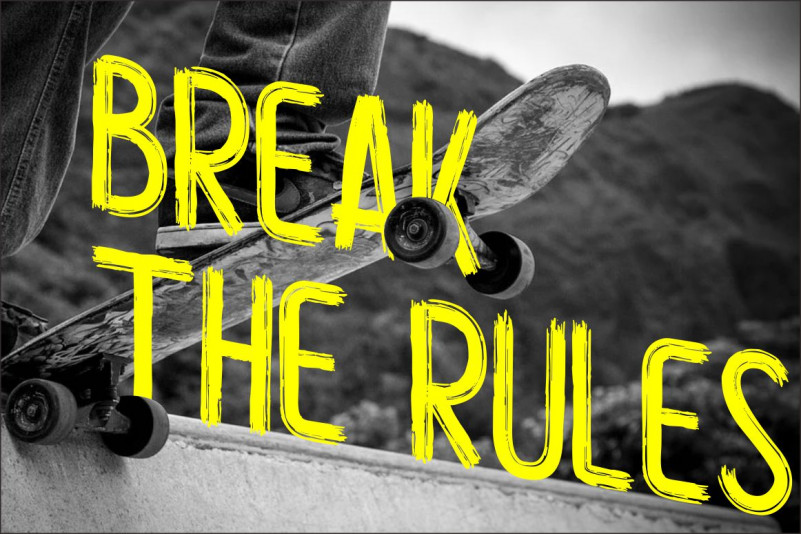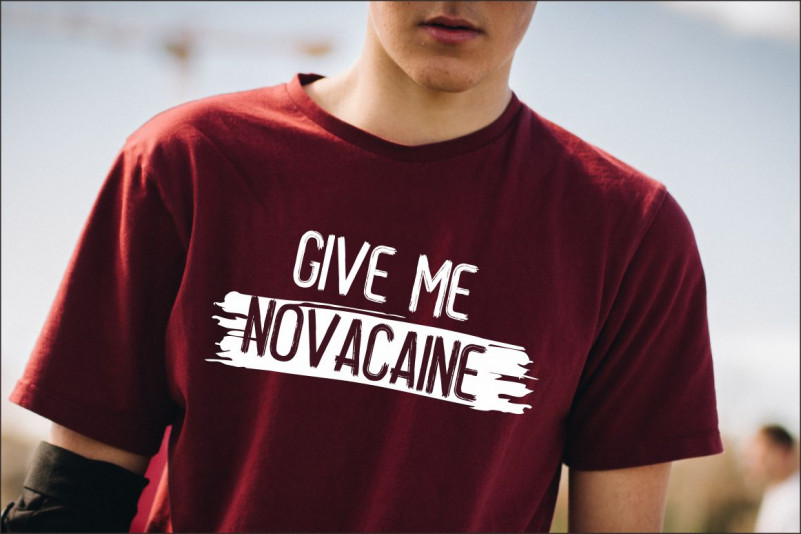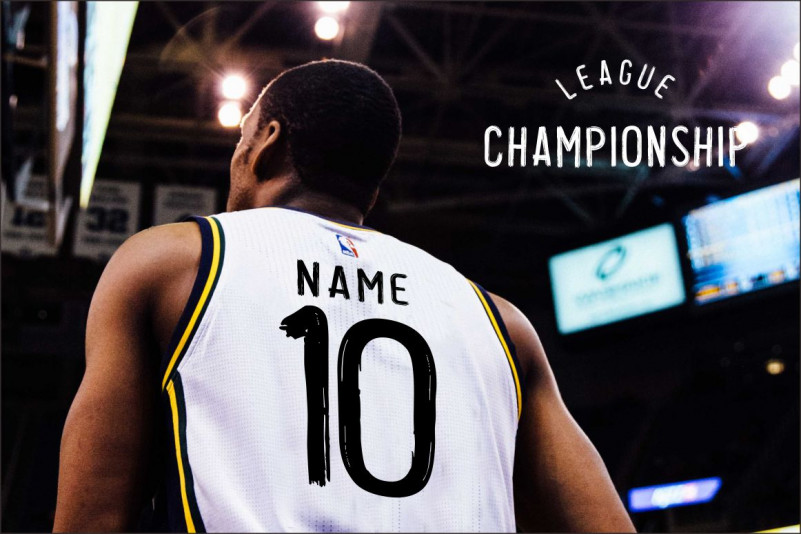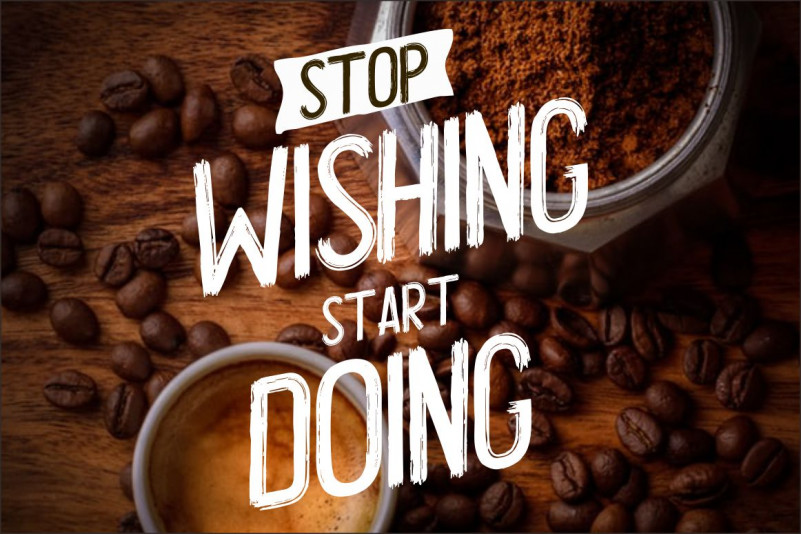
Locare Brush Font
Locare Brush Font is modern brush font which is waiting to be used for your next project! This font is perfect for making logo’s, invites, quotes, photo overlays, and any other awesome projects you’re working on.